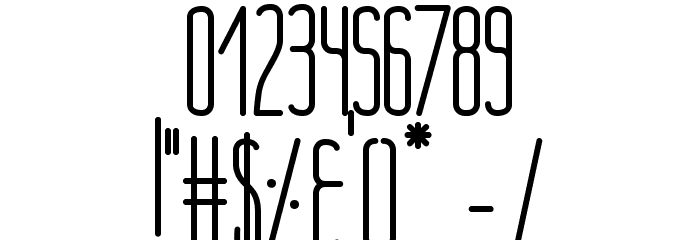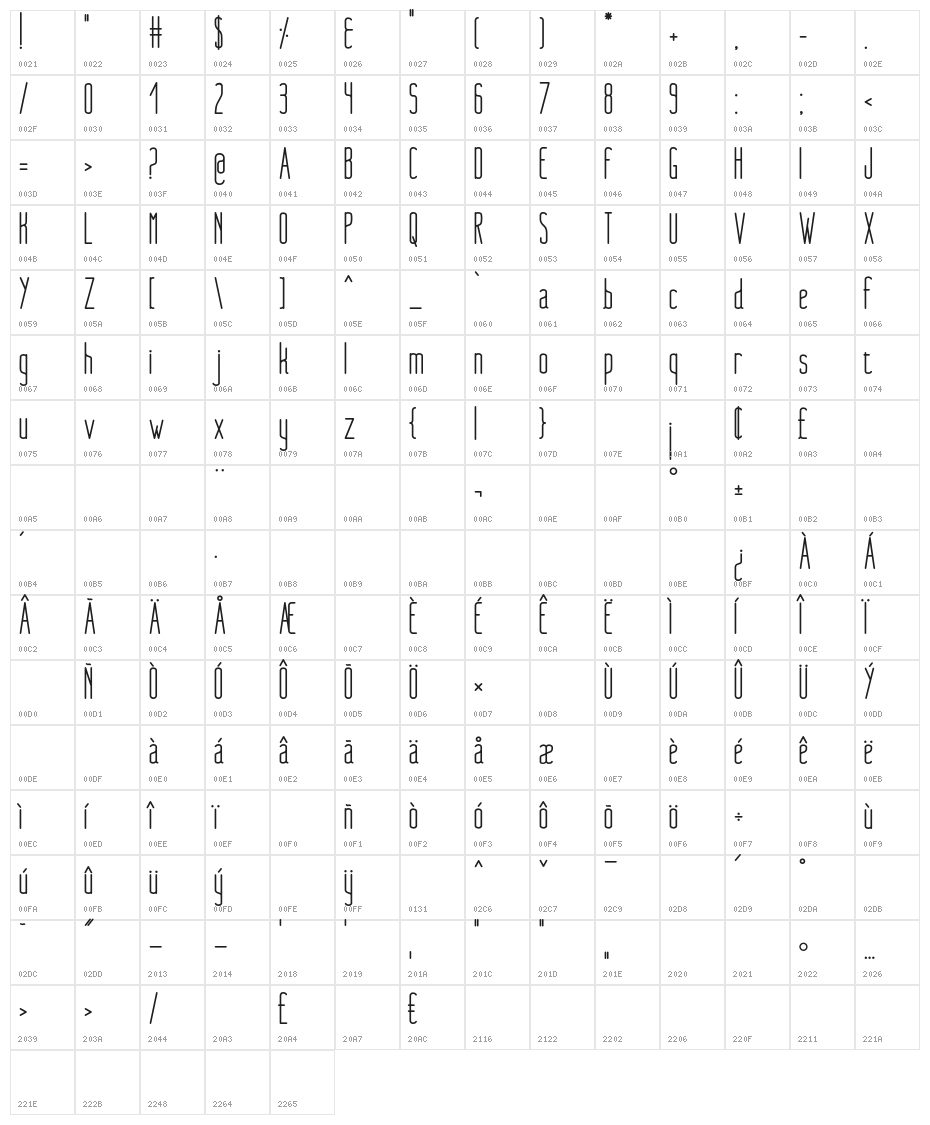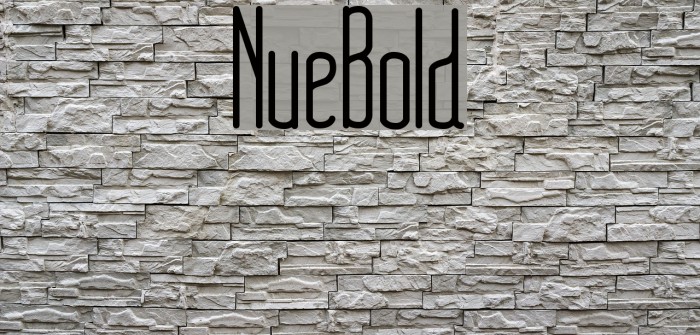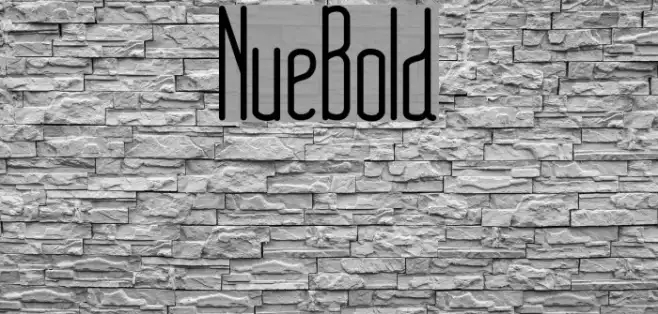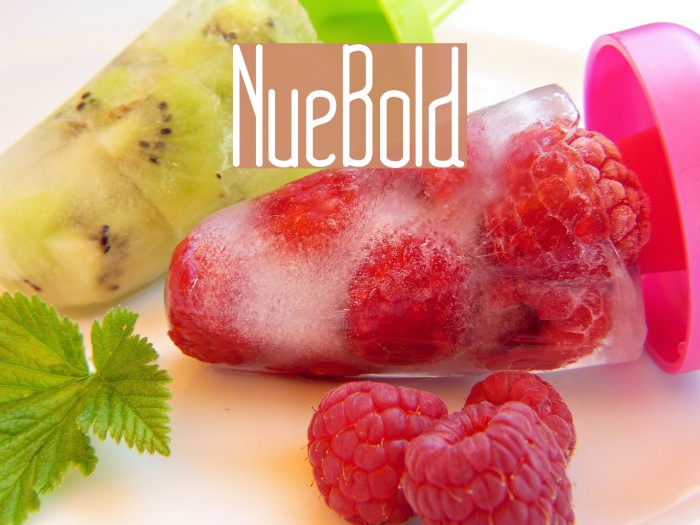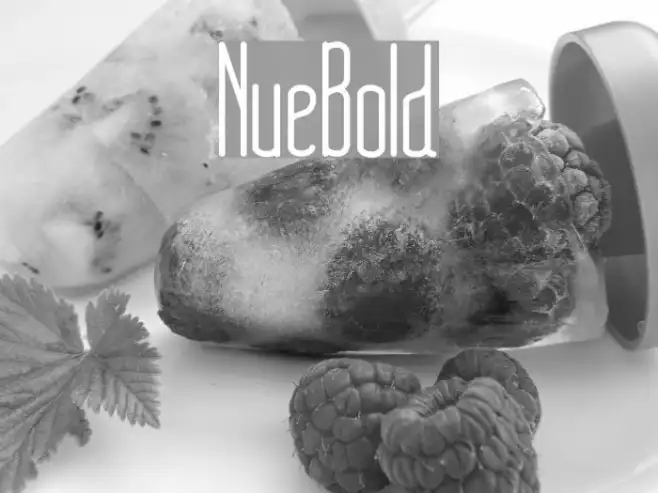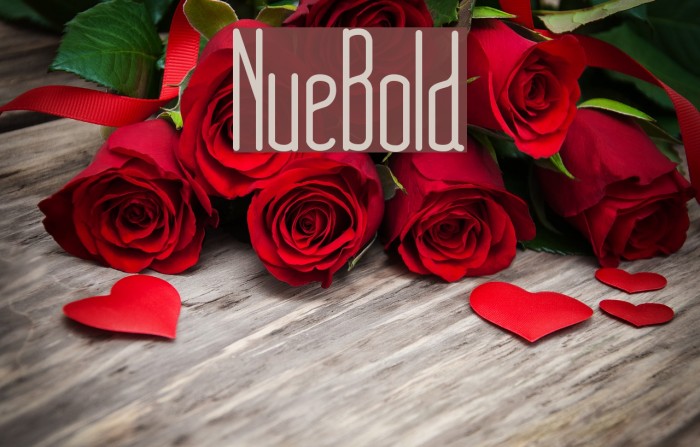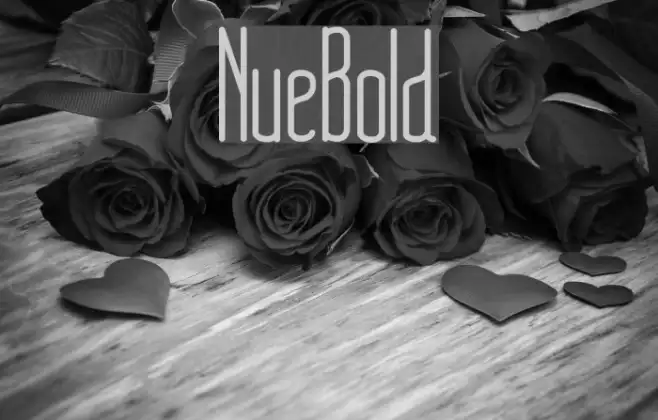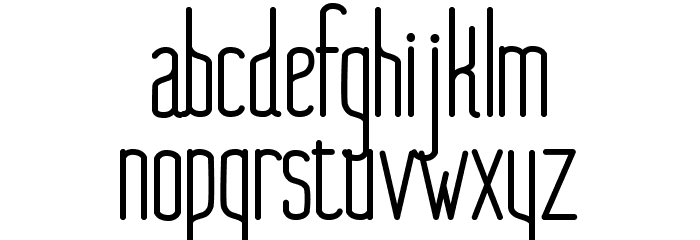
NueBold Font
NueBold Description
This font features a tall and narrow design with elongated letterforms, giving it a sleek and modern appearance. The characters are uniformly thin, with consistent stroke widths that contribute to a clean and minimalist aesthetic. The uppercase and lowercase letters maintain a cohesive style, while the numerals and special characters complement the overall look. Its geometric structure and simplicity make it versatile for various design applications.
| Proposed Projects | Ideal for modern branding, editorial headlines, posters, and minimalist design projects. |